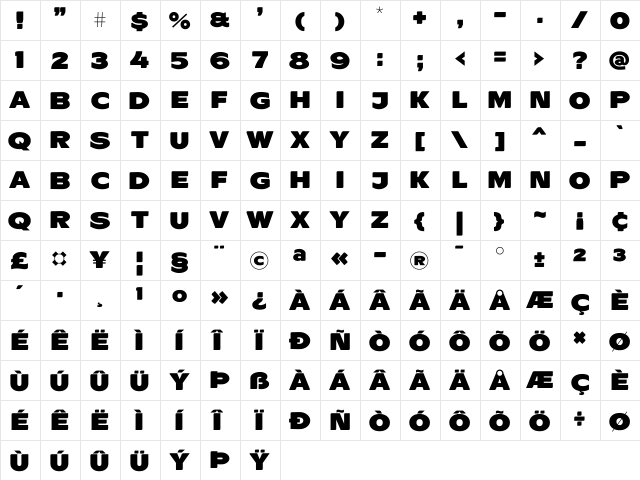
ResotELavender Regular
| Designer | gluk |
Design Context for ResotELavender Typeface
ResotELavender offers clean, dependable letterforms without strong stylistic allegiance, making it a practical choice for designers who need flexibility.